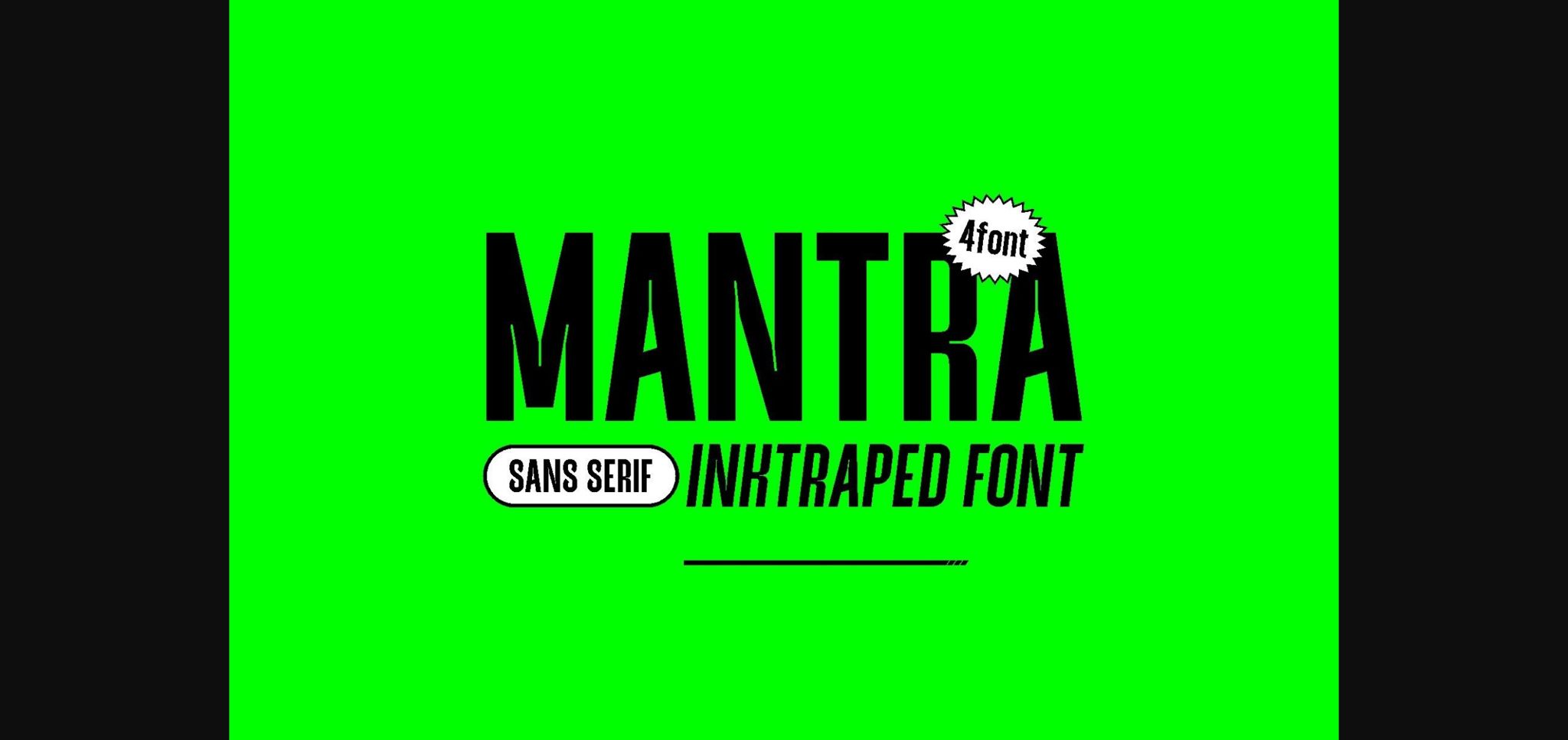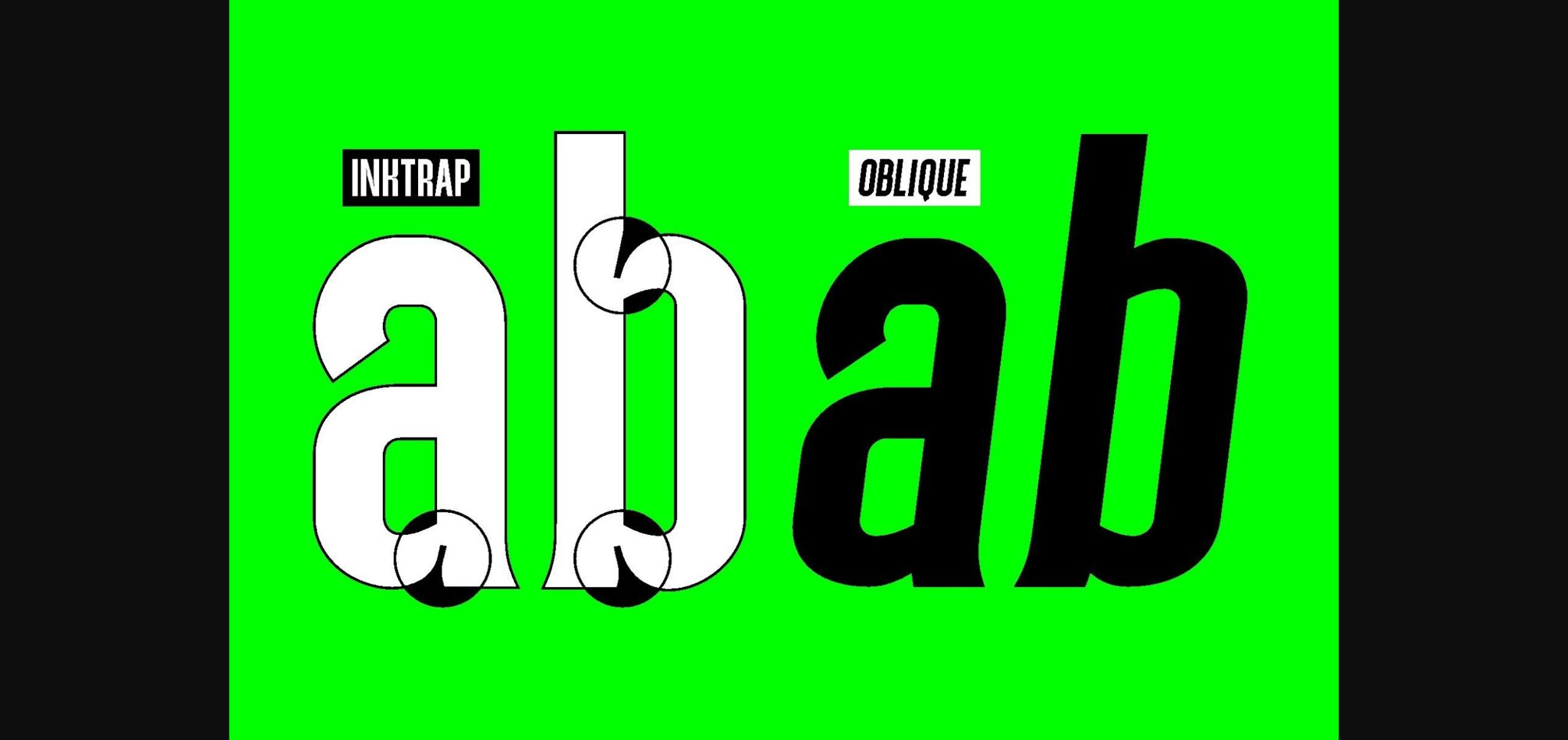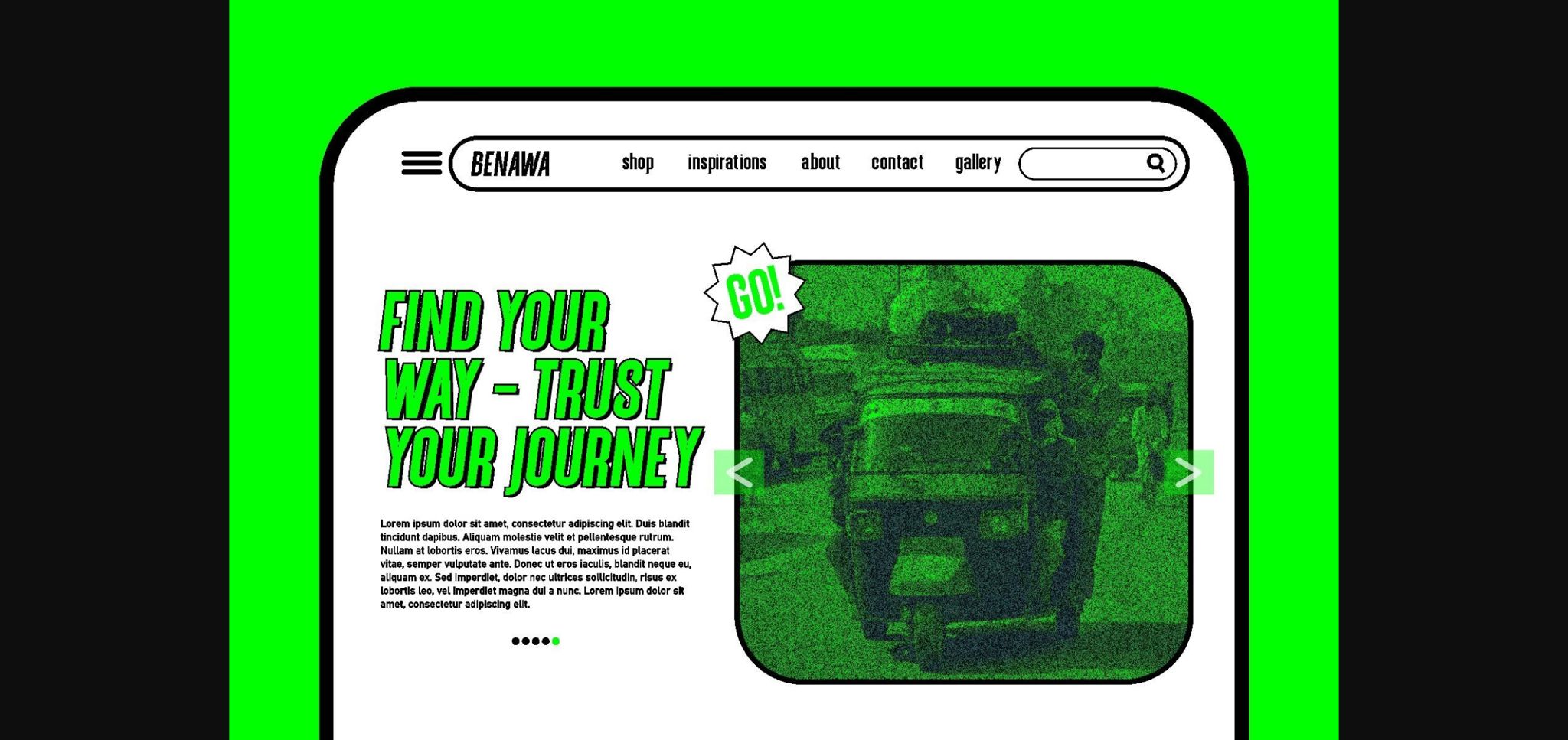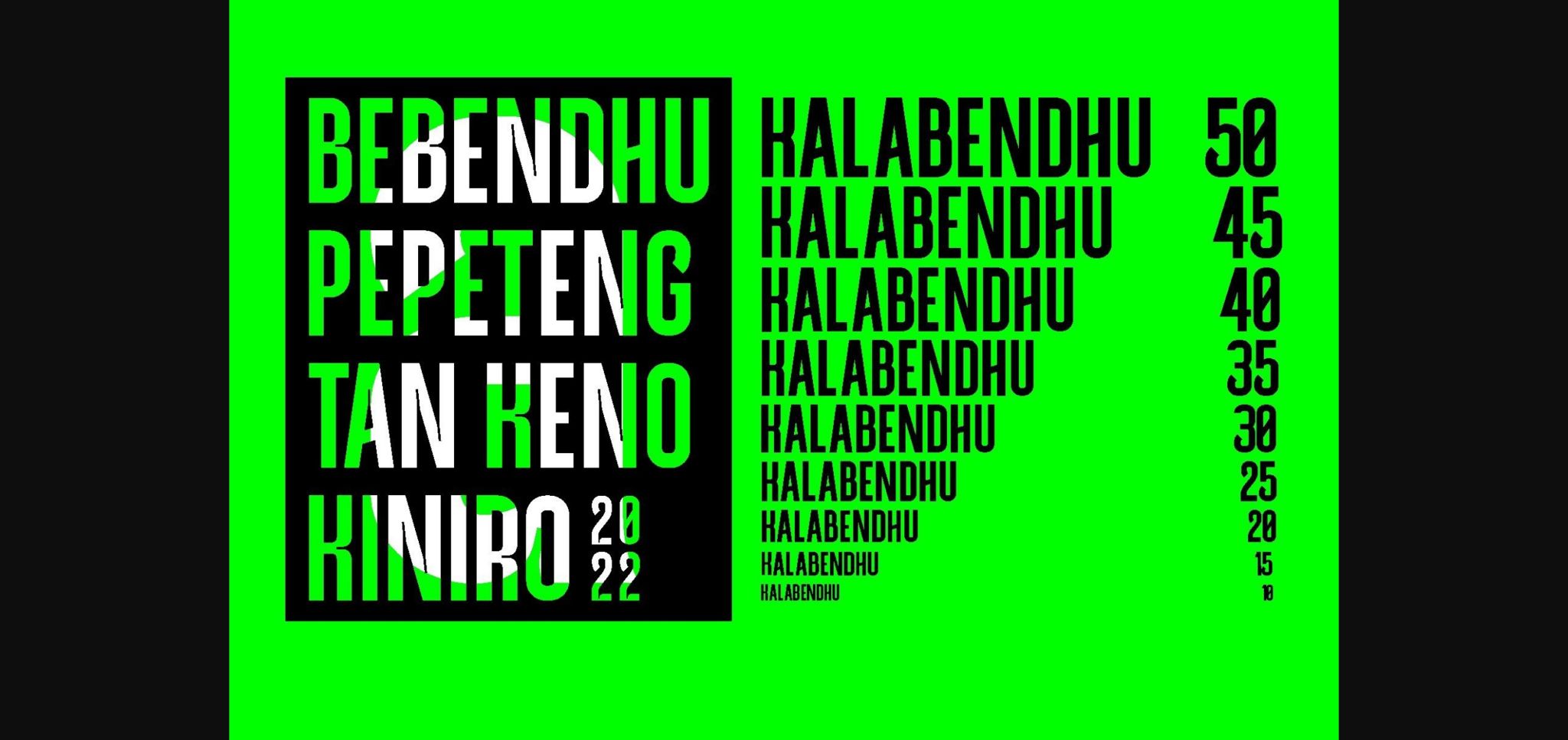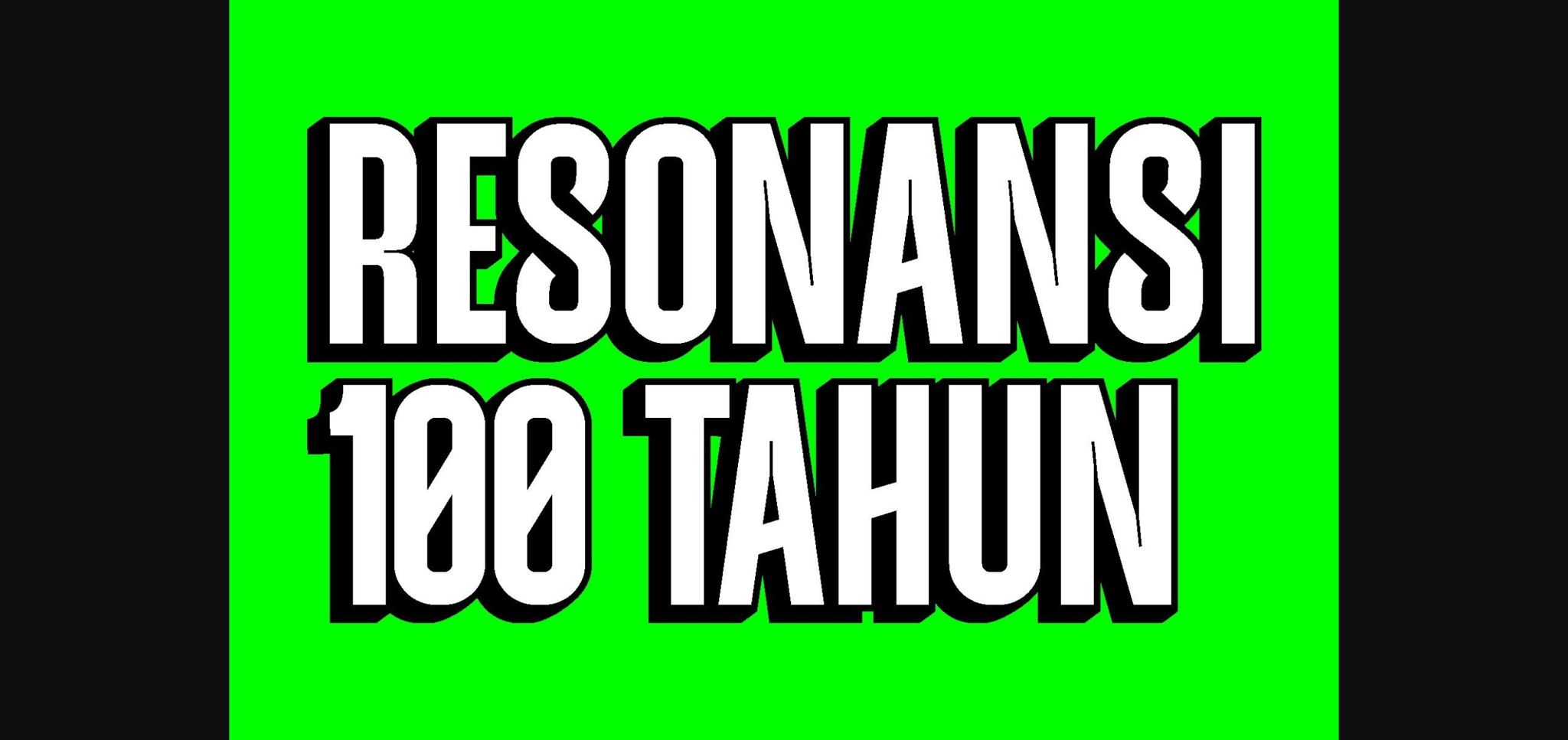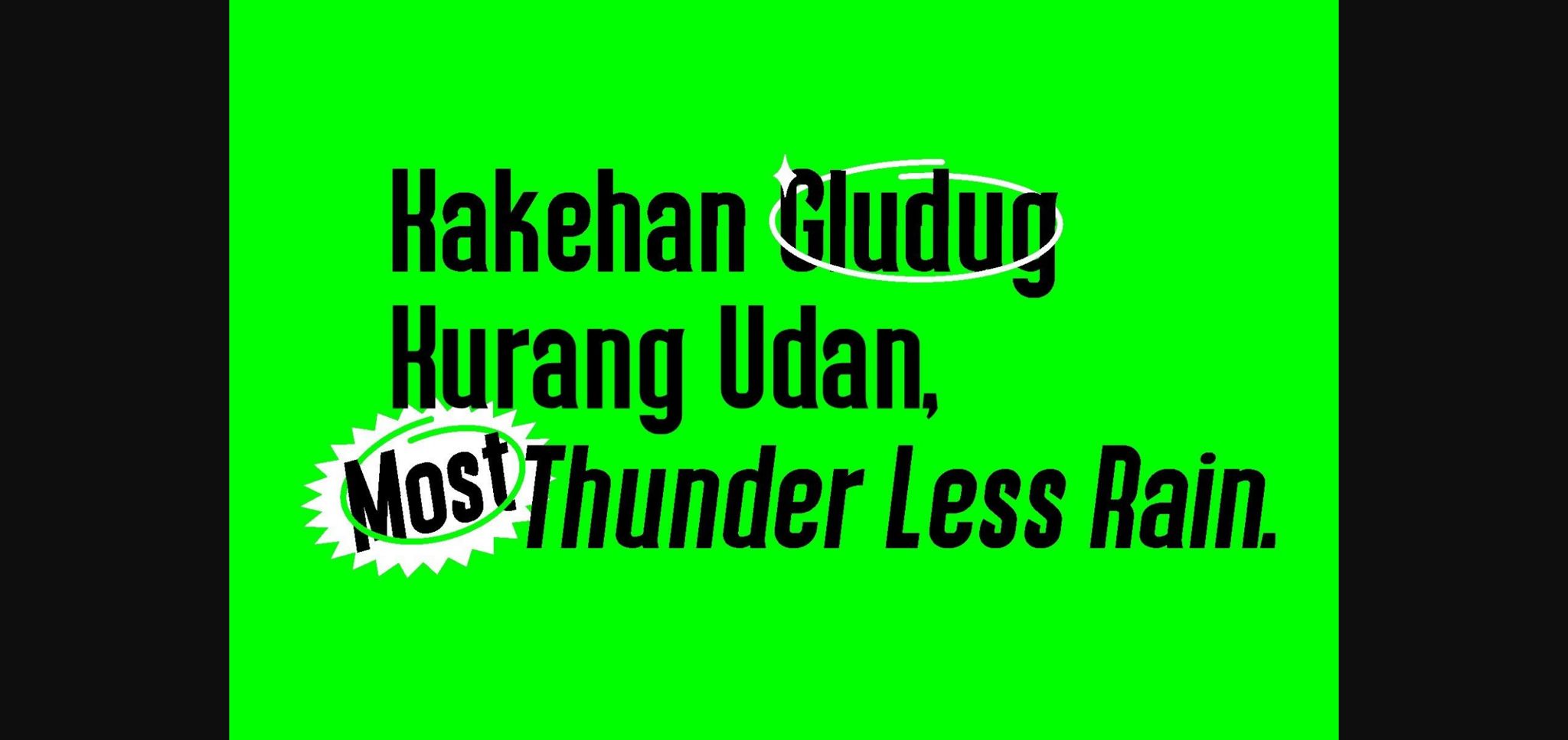
HomeSans Serif FontsMantra Font Sans Serif Fonts Mantra Font FacebookTwitterPinterestWhatsApp 1 of 8 ... Mantra Font Poster 2... Mantra Font Poster 3... Mantra Font Poster 4... Mantra Font Poster 5... Mantra Font Poster 6... Mantra Font Poster 7... Mantra Font Poster 8... About Mantra Font Mantra is a cool and modern sans serif font. With its classic yet fashionable style, this font is perfect for a wide pool of design ideas. DOWNLOAD NOW 185 0 People also explored Mountain Font Pinky Sweet Font Freeman Font Sameri Font Leaf Font Happyglen Font Bref Font Krisan Font Noodle Sandralia Font Wonderful Font Aatarada Font TagsMantraMantra Font Previous articleParma FontNext articleRothox Font LEAVE A REPLY Cancel reply Comment: Please enter your comment! Name:* Please enter your name here Email:* You have entered an incorrect email address! Please enter your email address here Website: Save my name, email, and website in this browser for the next time I comment. Unlock Endless Creativity with the FREE September Clipart Huge Bundle (Valued at $700!) Personal Use Free Peristiwa Font Personal Use Free Read more Kitchen Blue Personal Use Free Read more DREXS Personal Use Free Read more Autumn Flowers Font Personal Use Free Read more BLOG Exploring Font Trends Shaping Communication in the Digital Era Fonts, like all design elements, are subject to trends. They play a crucial role in communicating a brand's personality,... The 10 Best Handwriting Fonts to Add Personality to Your Designs Using Fonts in Digital Marketing: Tips to Strengthen Your Brand Identity To increase your work productivity, choose the most readable fonts.